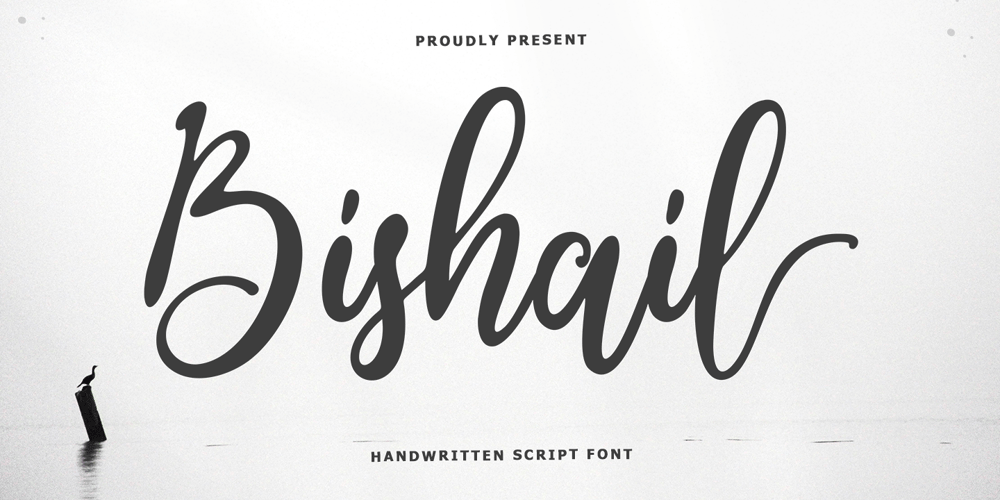
Bishail Script
Bishail Script font
Bishail Script Font Family was designed by Muhammad Taufik and published by Rastype Studio. Bishail Script contains 2 styles and family package options. Bishail Script are beautiful and modern fonts. Looks amazing on wedding invitations, thank you cards, mothers day card, quotes, greeting cards, logos, business cards and any other design.This font is PUA encoded which means you can access all glyphs and swashes with ease!The font includes OpenType features with alternative styles, ligatures, and multiple language support.Happy Designing!